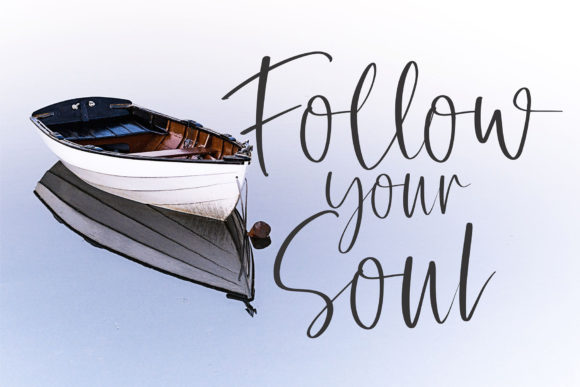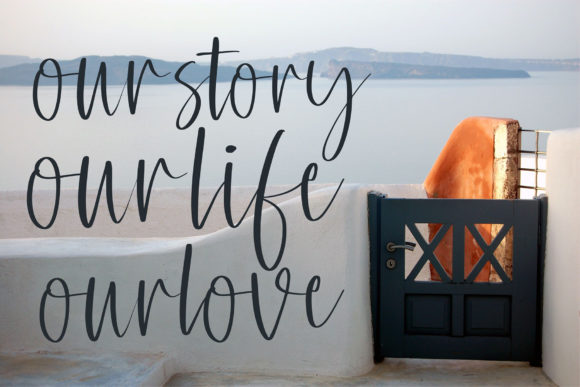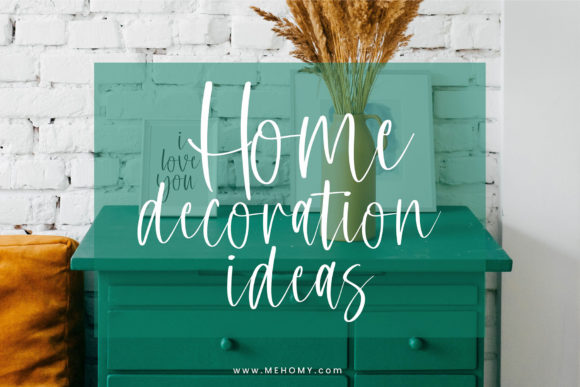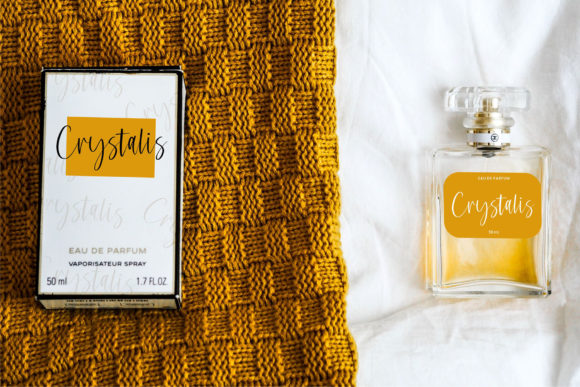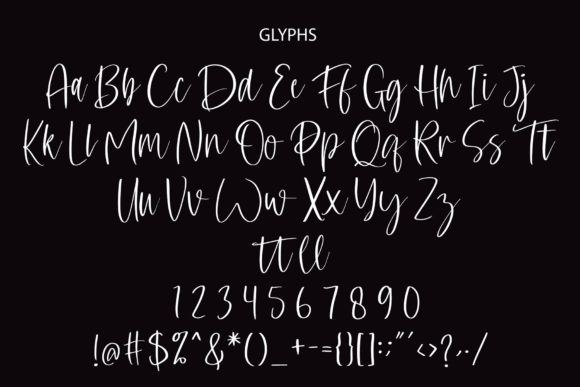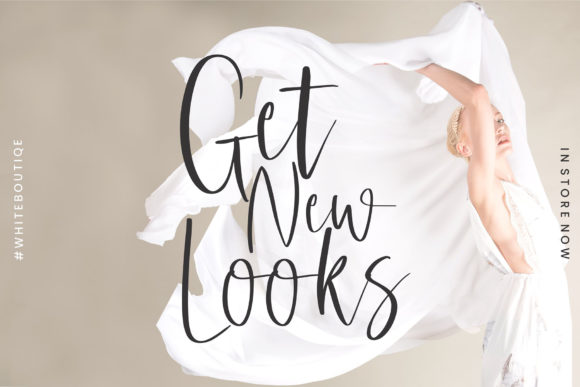
About Chrystelle Font
Chrystelle is a thin and elegant handwritten font that brings a touch of sophistication and grace to your designs. With its delicate letterforms and refined style, this font is perfect for creating outstanding and eye-catching designs.
The thin strokes of Chrystelle create a sense of elegance and delicacy, making it a great choice for projects that require a subtle and refined touch. Whether you’re designing wedding invitations, creating logos, or crafting social media graphics, Chrystelle adds a touch of sophistication that sets your designs apart.
The elegant and flowing nature of Chrystelle’s letterforms gives your designs a sense of fluidity and grace. Each letter is carefully crafted to create a harmonious and balanced overall appearance. This attention to detail ensures that your designs not only look beautiful but also maintain readability and legibility.
One of the key strengths of Chrystelle is its versatility. It can be used in a variety of design projects, from elegant wedding stationery to minimalist branding. The font adapts seamlessly to different design styles and themes, making it a versatile choice for any creative endeavor.
Whether you’re designing for print or digital media, Chrystelle retains its elegance and impact. Its thin strokes and clean lines make it suitable for both large-scale designs and smaller details. It can be used as a headline font or paired with other complementary typefaces to create a well-balanced and visually appealing composition.
Chrystelle’s elegant and thin design is complemented by its readability and versatility. The font’s clarity ensures that your message is conveyed effectively, while its stylish appearance adds a touch of sophistication to your designs.
In summary, Chrystelle is a thin and elegant handwritten font that adds a touch of sophistication and grace to your designs. Its delicate letterforms and refined style make it a versatile choice for a wide range of projects. Whether you’re creating wedding invitations, logos, or other outstanding designs, Chrystelle brings an element of elegance and beauty that enhances the overall aesthetic of your work.